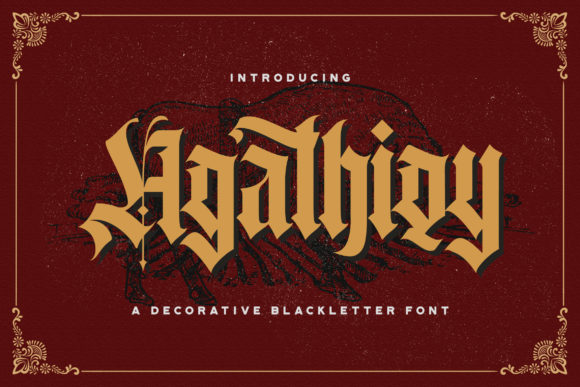
Prepare to be mesmerized by Agathiqy, a blackletter font that exudes boldness and authenticity. A creation of StringLabs, this font is a true gem, possessing a captivating aura that transforms your creative visions into masterpieces. Agathiqy yearns to be unleashed upon your most daring projects, ready to leave an indelible mark.
Immerse yourself in the depths of Agathiqy's versatility, a font that effortlessly adapts to a myriad of creative expressions. Whether you seek to craft designs that ooze sophistication or yearn for an edge that commands attention, Agathiqy rises to the occasion, effortlessly captivating your audience. Unleash your imagination and watch as this font elevates your designs to unprecedented heights.
Picture Agathiqy gracing your tattoo lettering, its intricate strokes flowing seamlessly across your skin, narrating a tale of individuality and daring. Feel the rush of adrenaline as your designs take on a life of their own, imbued with an energy that resonates with your creative spirit. Agathiqy is the perfect companion for those seeking to make a statement, to leave an enduring impression that echoes your artistic prowess.
Dare to step beyond the boundaries of convention and surrender to the allure of Agathiqy. Its enigmatic charm beckons you into a realm where creativity thrives, where your designs flourish with newfound vigor. Embrace the audacity of Agathiqy and witness the transformation unfold before your very eyes.